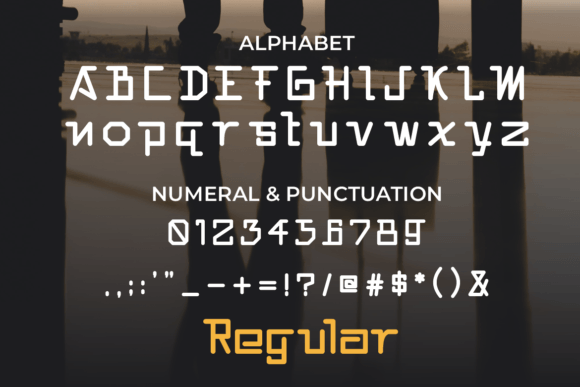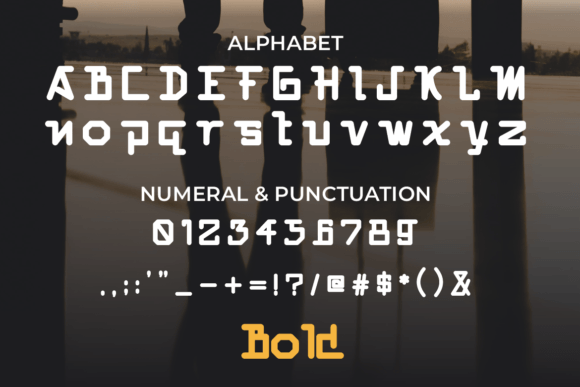
Cemari Font: Elevate Your Designs with a Modern and Cool Display Font
In the world of design, fonts play a crucial role in conveying messages, expressing emotions, and creating visual identities. For designers and crafters, having access to a diverse library of high-quality fonts is essential to stay creative and produce stunning work. If you’re on the lookout for a modern and cool display font that can elevate your designs, look no further than Cemari Font. In this article, we’ll explore the features, benefits, and uses of Cemari Font, and why it’s an incredible asset to your font library.
What is Cemari Font?
Cemari Font is a modern and cool display font designed to make a statement. Its sleek lines, elegant curves, and unique style make it perfect for a wide range of design projects, from branding and advertising to packaging and digital media. Whether you’re creating a logo, heading, or title, Cemari Font is sure to grab attention and leave a lasting impression.
Key Features of Cemari Font
- Modern and Cool Design: Cemari Font boasts a contemporary design that’s both stylish and sophisticated.
- High Versatility: This font can be used for various design projects, including headings, titles, logos, and more.
- Elegant and Readable: Cemari Font features clean lines and elegant curves, making it easy to read and understand.
- Unique Style: The font’s distinctive style sets it apart from other display fonts, ensuring your designs stand out.
Benefits of Using Cemari Font
- Enhance Your Designs: Cemari Font can instantly elevate your designs, adding a touch of sophistication and style.
- Flexibility: Cemari Font can be used for various design projects, making it a versatile addition to your font library.
In conclusion, Cemari Font is a modern and cool display font that’s sure to elevate your designs and take your creativity to the next level. With its sleek design, high versatility, and unique style, it’s an incredible asset to your font library. Whether you’re a graphic designer, digital artist, crafter, or web designer, Cemari Font is a must-have resource that will help you create stunning designs and engage your audience.